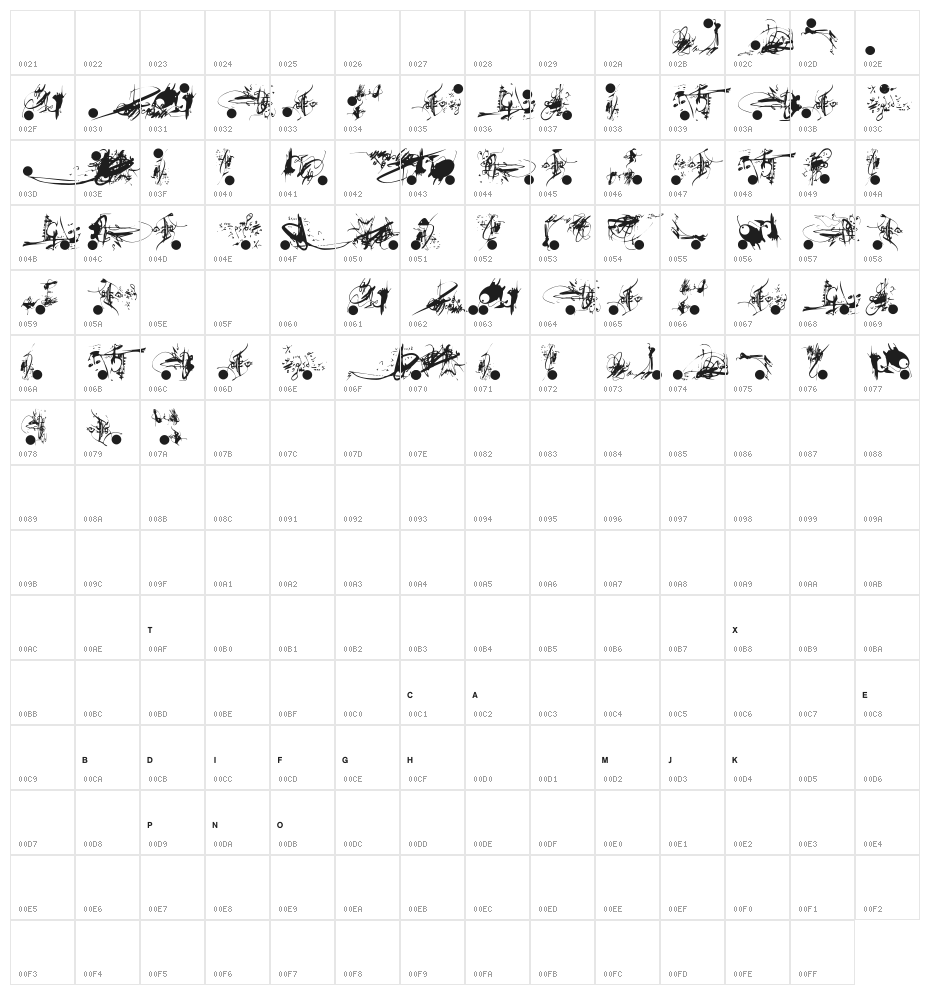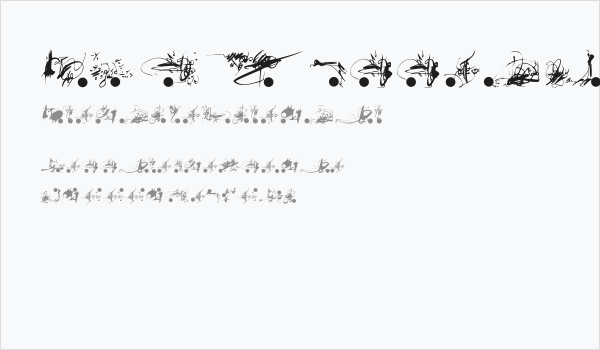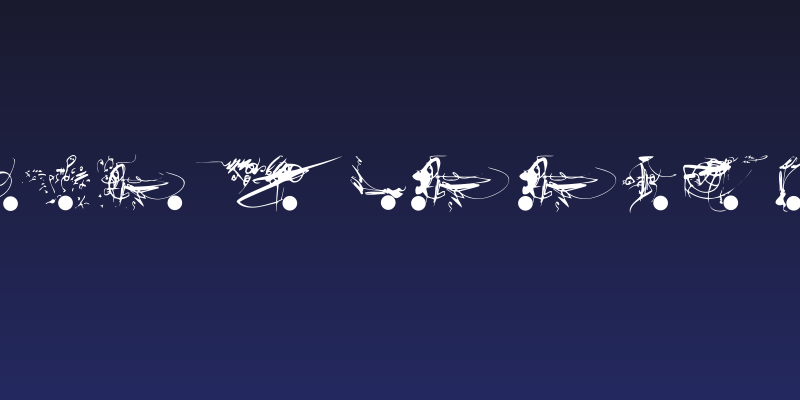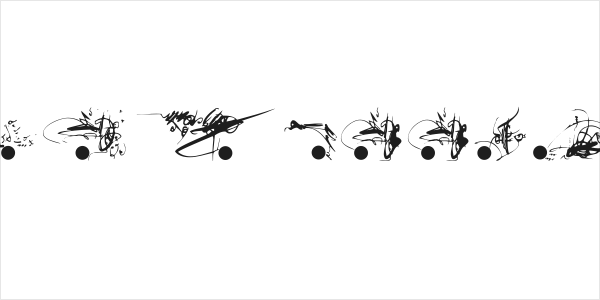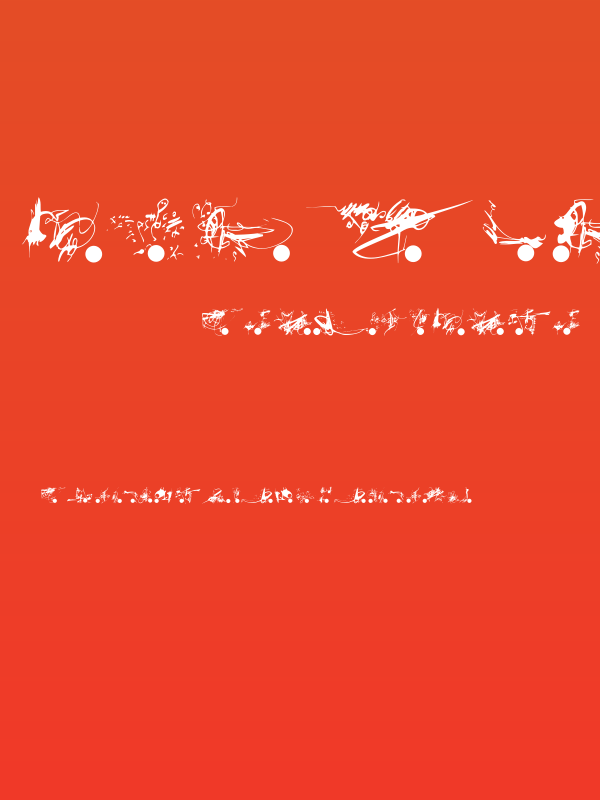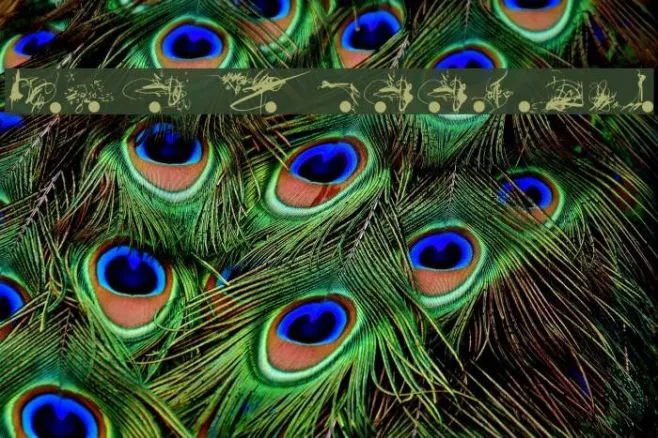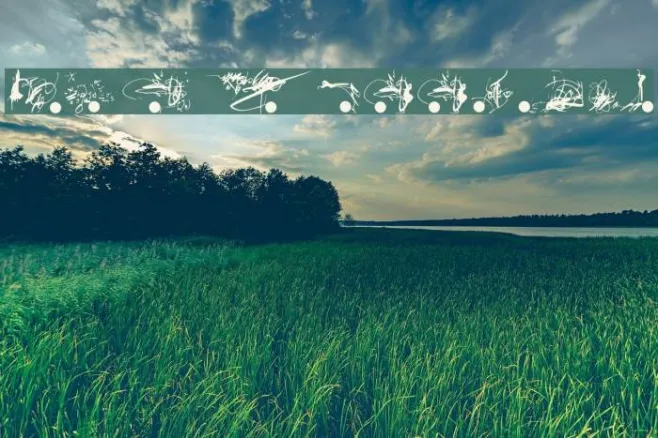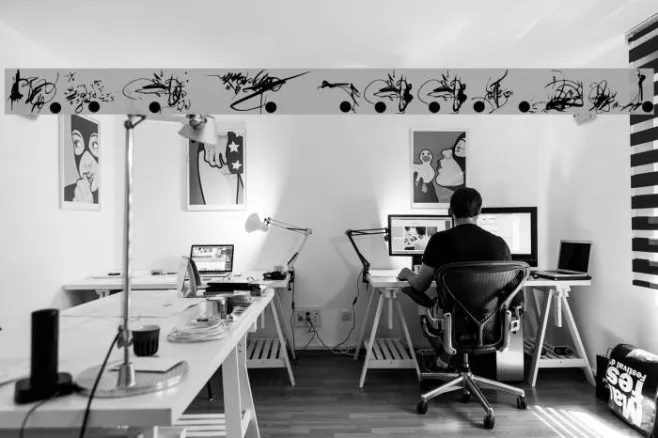
AndBullets Font
AndBullets Description
This font is an abstract and artistic representation, characterized by its chaotic and intricate design. Each character is a unique composition of swirling lines and shapes, creating a sense of movement and dynamism. The font lacks traditional readability, focusing instead on visual impact and creativity. It's more of an art piece than a functional typeface, with each letter resembling a complex doodle or graffiti. The overall appearance is bold and expressive, making it suitable for artistic projects where the visual form is prioritized over legibility.
| Use Case | Artistic projects, abstract designs, visual art pieces. |
| Proposed Projects | Ideal for art installations, abstract posters, or creative digital artwork where visual impact is key. |